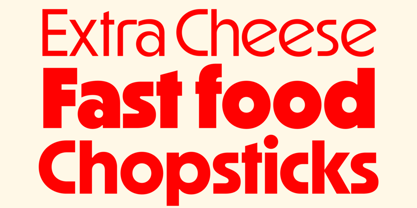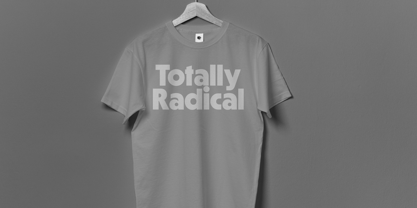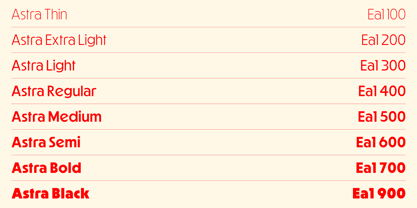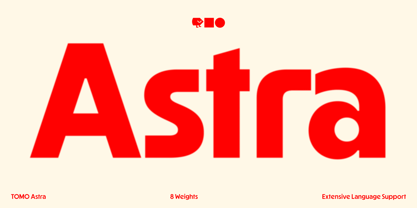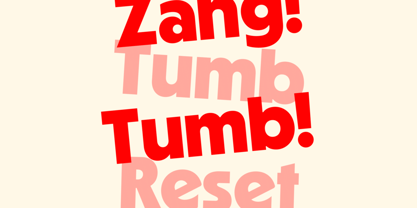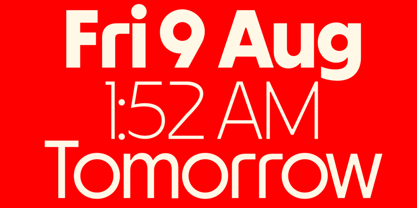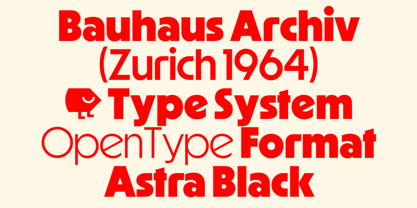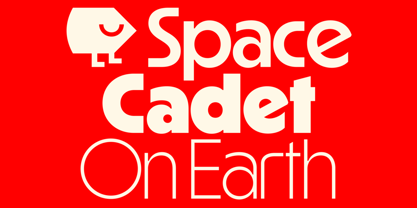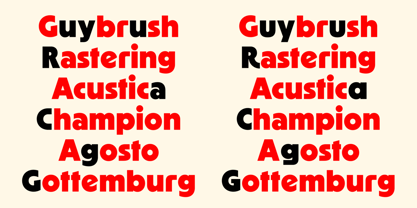
Astra
by TOMO Fonts
The Astra Font Family was designed by TOMO Fonts and published by TOMO Fonts. Astra contains 8 styles and family package options.
Astra is a Bold, Retro, Playful, and Eye-Catching Font for your next design project.
Introducing TOMO Astra, a striking typeface perfect for grabbing attention and making a statement. This bold, rounded and geometric sans-serif font offers a modern, clean aesthetic that’s perfect fast-paced marketing campaigns, and branding projects that require high energy. Ideal for restaurants, food trucks, or any brand looking for a fun, approachable retro vibe. The rounded yet structured letterforms offer a friendly yet professional feel, making this font versatile for both playful and corporate designs.